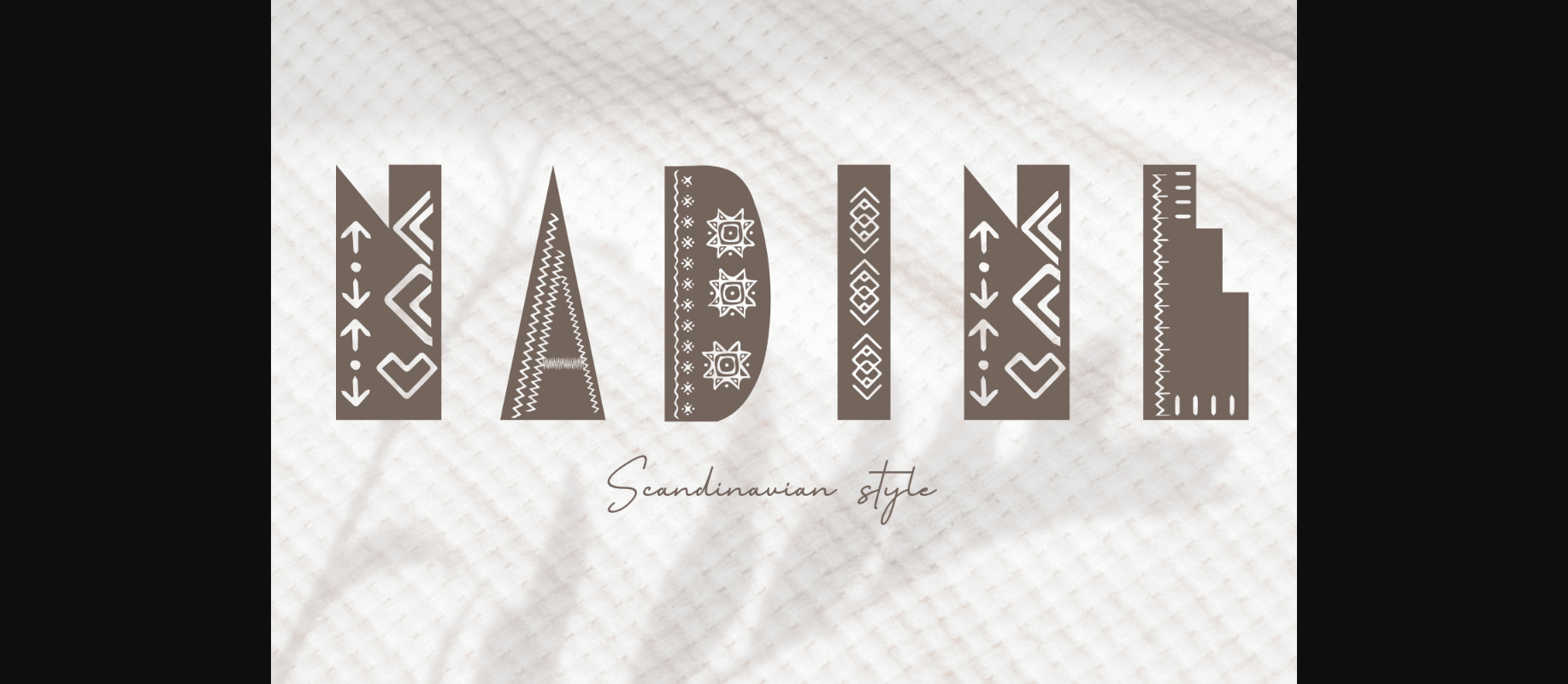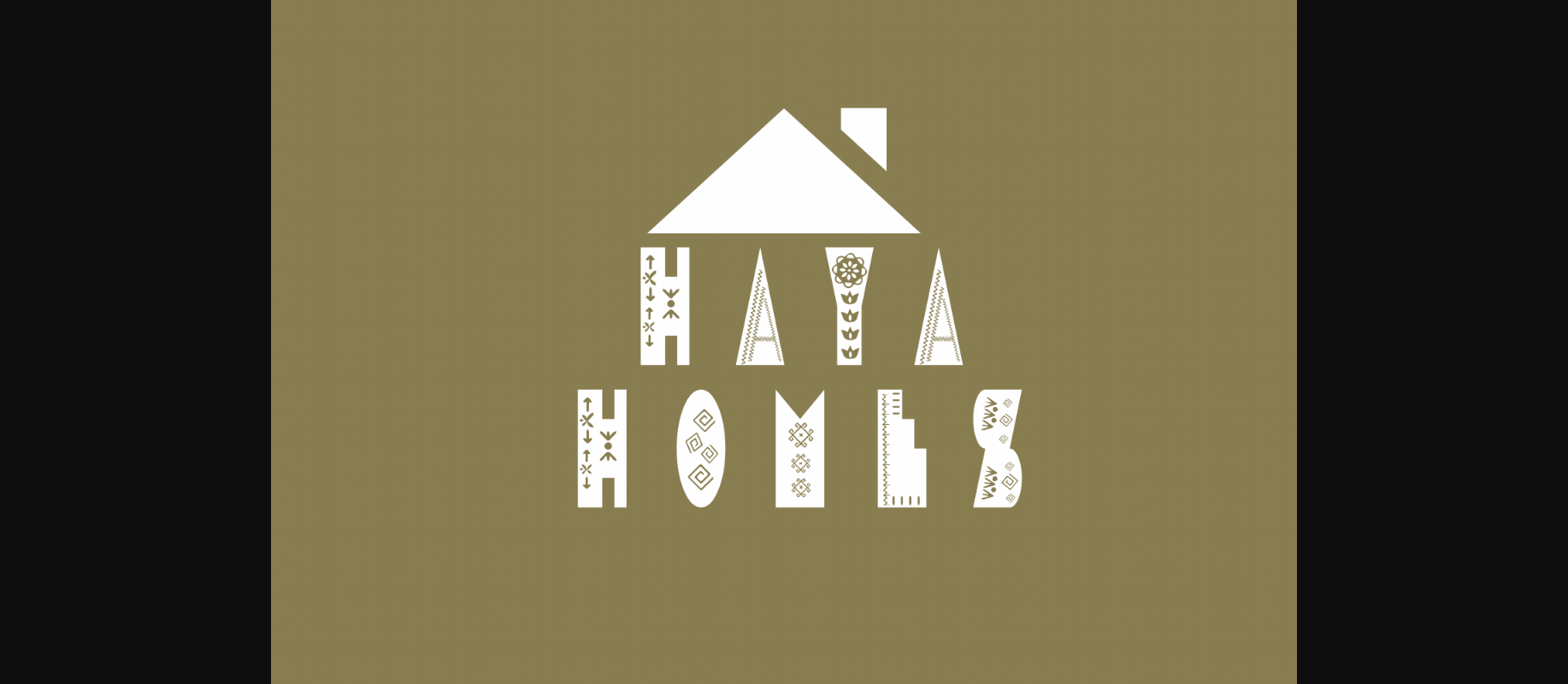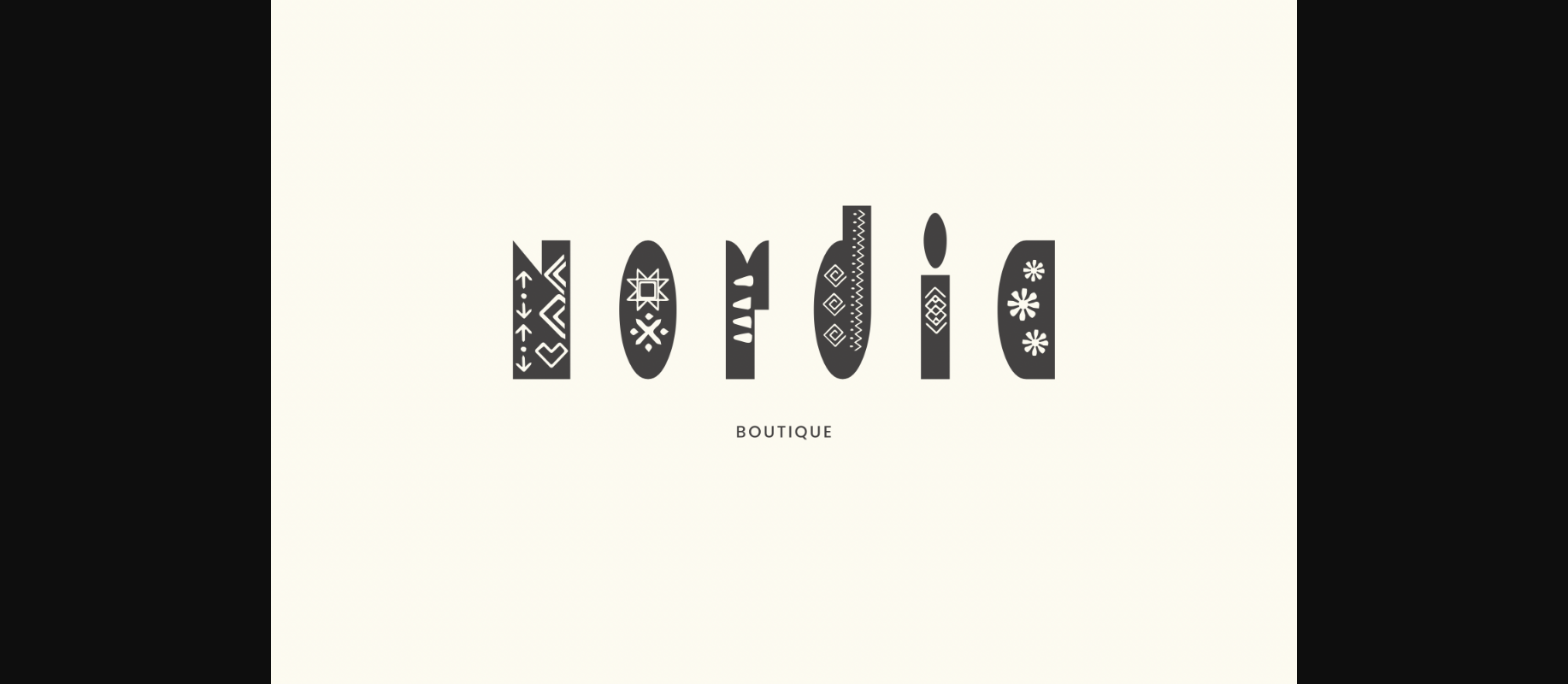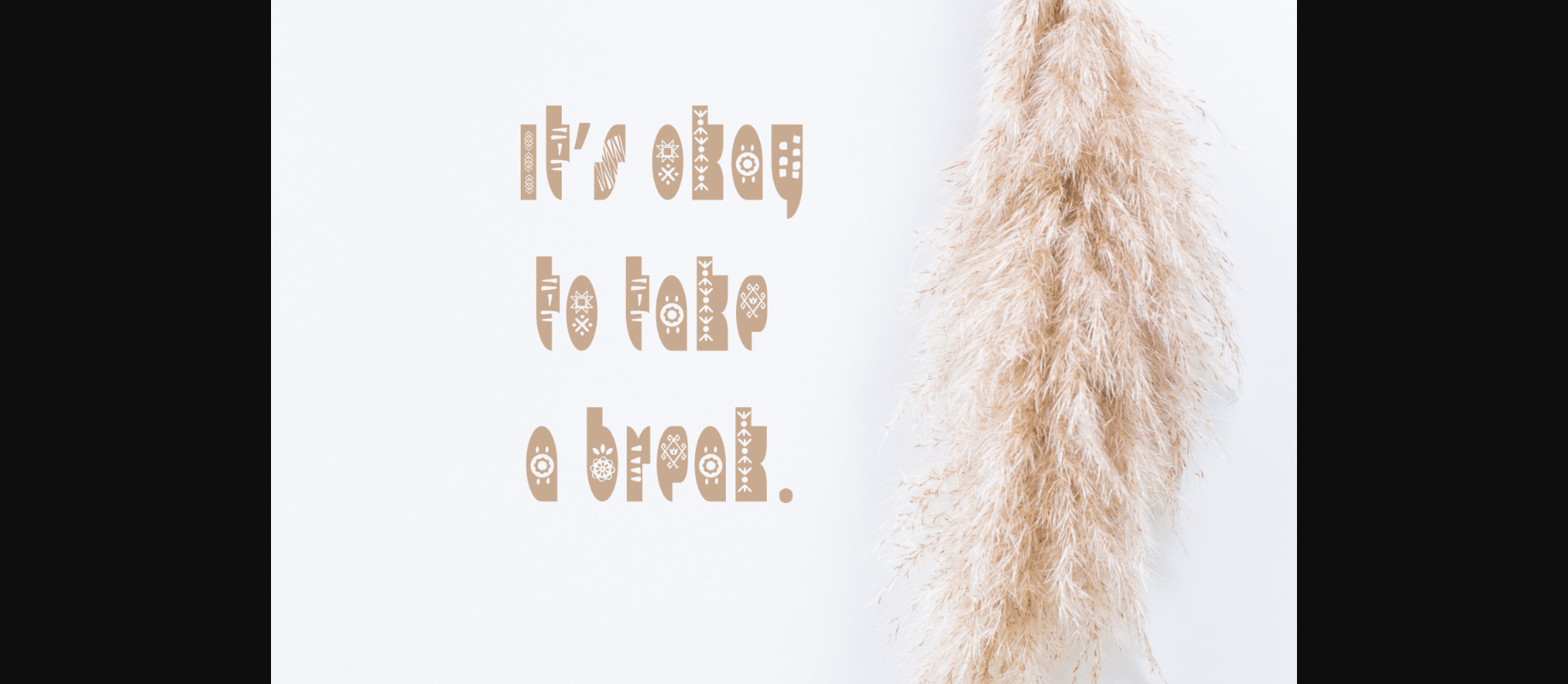
About Nadine Font
Nadine is a lovely decorative font. It has a Nordic style that looks sweet, adorable, and festive! The typeface is designed to provide a little easy and whimsical Christmas cheer to your life.